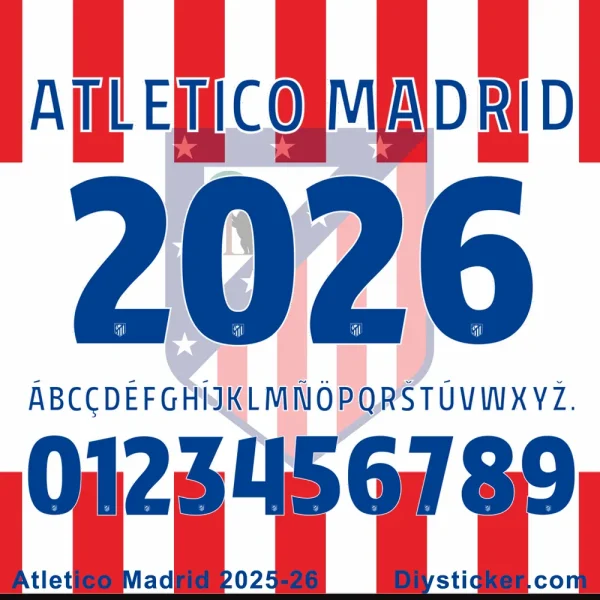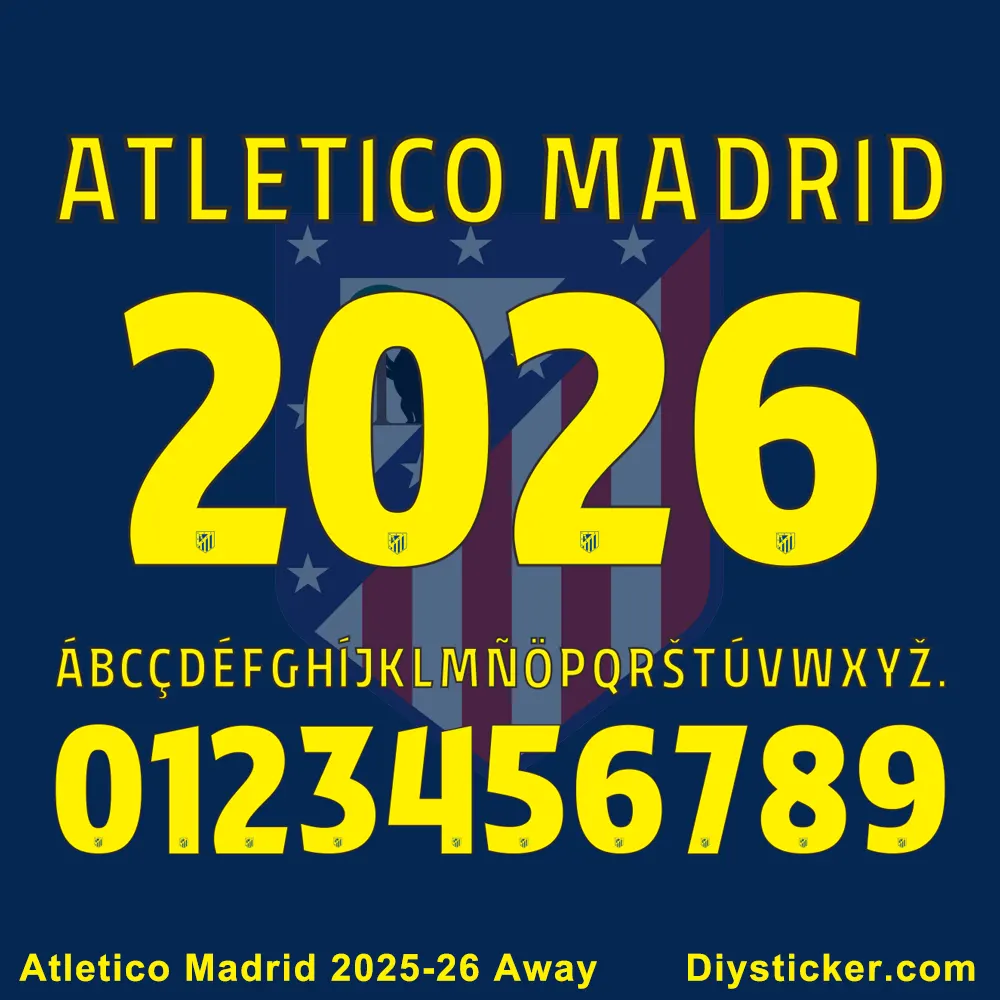
Atletico Madrid 2025-26 Font Download
Get the authentic Atletico Madrid 2025-26 font! This download includes the official typeface used for player names and numbers on their home and away kits. Perfect for personalizing your jerseys, creating fan art, or designing unique merchandise. Files available in TTF, OTF, AI, CDR, and PDF vector formats for maximum compatibility.